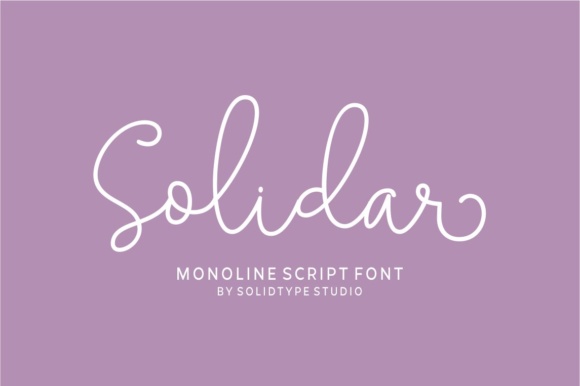
Introducing Solidar Font, a captivating script font that is sure to transform your designs with its captivating monoline strokes and alluring character. The remarkable work of Solidtype, the Solidar font is a delightful combination of casual and elegant styles, assuring your projects stand out with elegance.
Immerse yourself in the world of typography with the Solidar Font, which exudes a seamless combination of sophistication and playfulness. Its monoline strokes dance across your screens, creating an immediate visual impact that leaves a lasting impression. Dive into the treasure trove of alternatives and swashes included in the font library, and let your creativity soar as you discover endless possibilities for customization.
With its captivating style, the Solidar Font effortlessly elevates your designs, bringing life to your posters, branding, wedding invitations, social media graphics, and even heartfelt handwritten letters. Its versatility knows no bounds, so whether you're a designer, a blogger, or a creative entrepreneur, the Solidar Font is the perfect tool to manifest your vision in a captivating way.